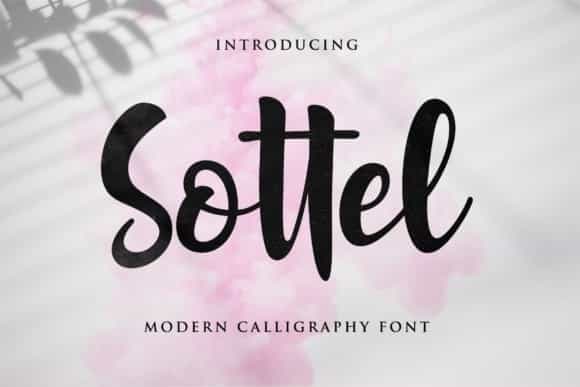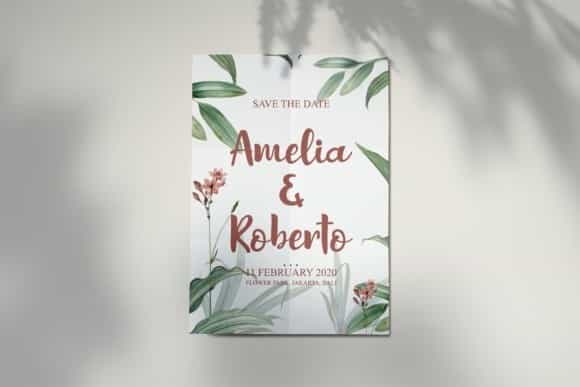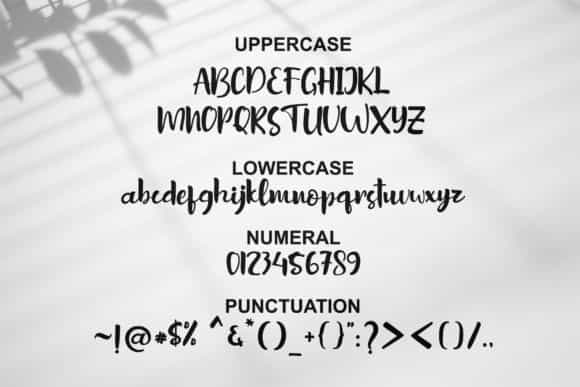
Sottel is a brave modern calligraphy script typeface with a cheerful theme for your fun project. This font is a perfect script that is created for the purpose of making your set of invitations, Brand, blog posts and more completely beautiful.